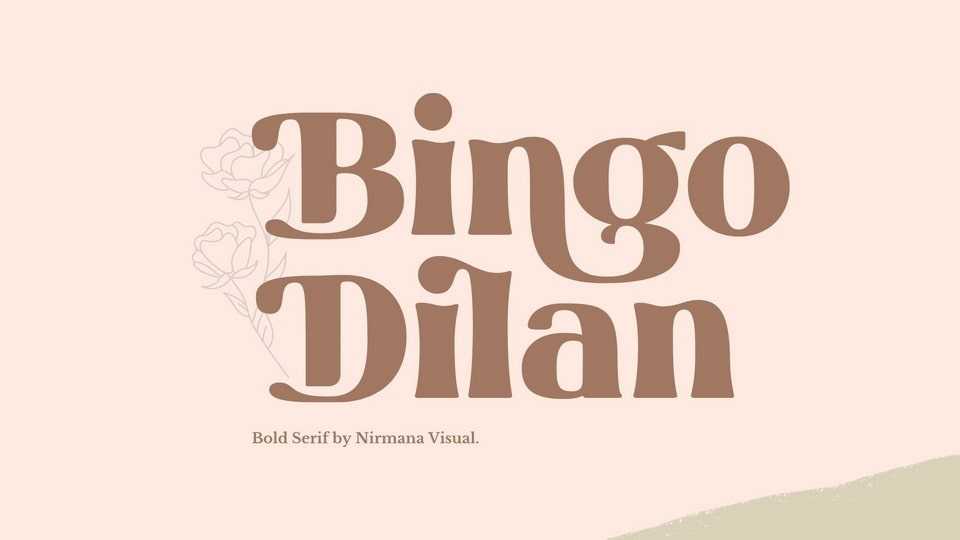
Download Bingo Dilan font, a cool and stylish serif typeface. Bingo Dilan font is perfect for fashion related branding or editorial design and displays both masculine and feminine qualities.